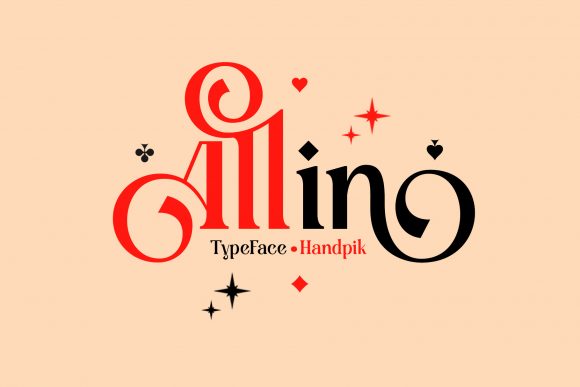
Feast your eyes on Allin Font, a resplendent serif font that exudes elegance and distinction. Handcrafted with meticulous attention to detail, this font possesses an inherent charm that will elevate any digital creation.
Step into a world where typography meets artistry, where each letter is a brushstroke, a testament to the font's exquisite design. Allin Font's intricate details and graceful curves are a symphony of visual delight. Its serifs, like delicate flourishes, add a touch of sophistication, making every word a statement of refined elegance.
Unleash your creativity with Allin Font, the perfect companion for your digital endeavors. Whether you're crafting captivating logos, enthralling social media posts, or designing breathtaking websites, this font will amplify your message with a touch of timeless beauty.
Imagine your words dancing across the screen, each character a work of art, captivating your audience. Allin Font's allure extends beyond its aesthetic appeal; it boasts exceptional legibility, ensuring that your message is conveyed with clarity and impact.
With Allin Font as your ally, your digital creations will transcend the ordinary and enter the realm of the extraordinary. Its versatility knows no bounds, adapting seamlessly to a multitude of design styles and themes. From classic and timeless to modern and edgy, Allin Font has the power to transform your ideas into visual masterpieces.
Embark on a creative journey like no other with Allin Font. Let your imagination soar as you explore the limitless possibilities it offers. Dive into the world of typography and discover the transformative power of a font that is both beautiful and functional.